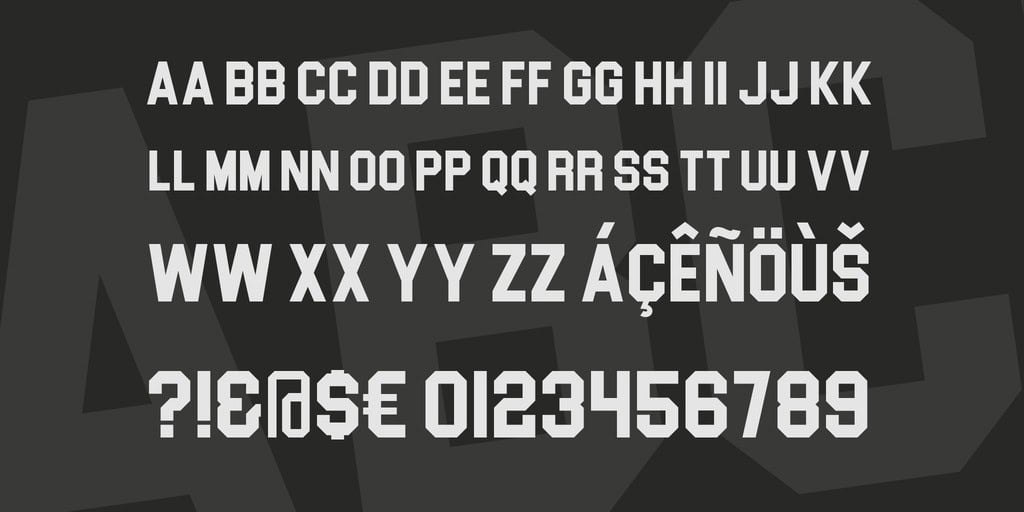
blockletter
Explore the Boldness of Blockletter Font
Blockletter, created by Alex Smith in 2023, is a striking sans-serif typeface that captures attention with its bold lines and geometric structure. Ideal for various applications such as posters, advertisements, logos, and web design, this font enhances any project with its unique character.
The Inspiration Behind Blockletter Font
Blockletter was inspired by the need for a bold and legible typeface in an increasingly visual world. Alex Smith’s design focuses on clarity and impact, making it an excellent choice for impactful headlines and branding that demands attention.
Best Use Cases for Blockletter Font
Perfect for applications involving bold statements, Blockletter font excels in advertisements, event posters, and brand logos. Its modern style resonates in various contexts, offering versatility for both online and offline materials.